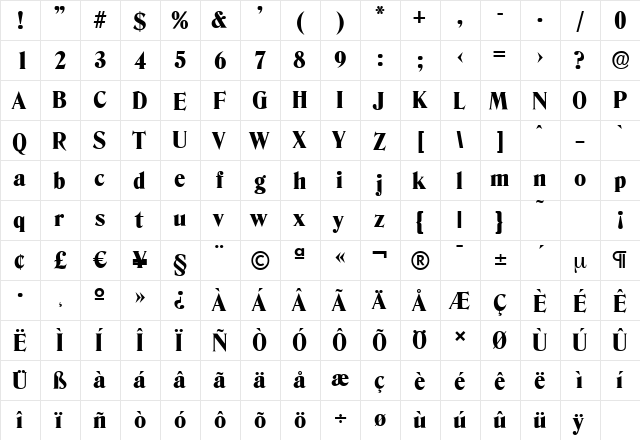
DenverSerial-Heavy Regular
Design Context for DenverSerial-Heavy Typeface
DenverSerial-Heavy is a composed and adaptable typeface that performs quietly and consistently across a wide range of design contexts.